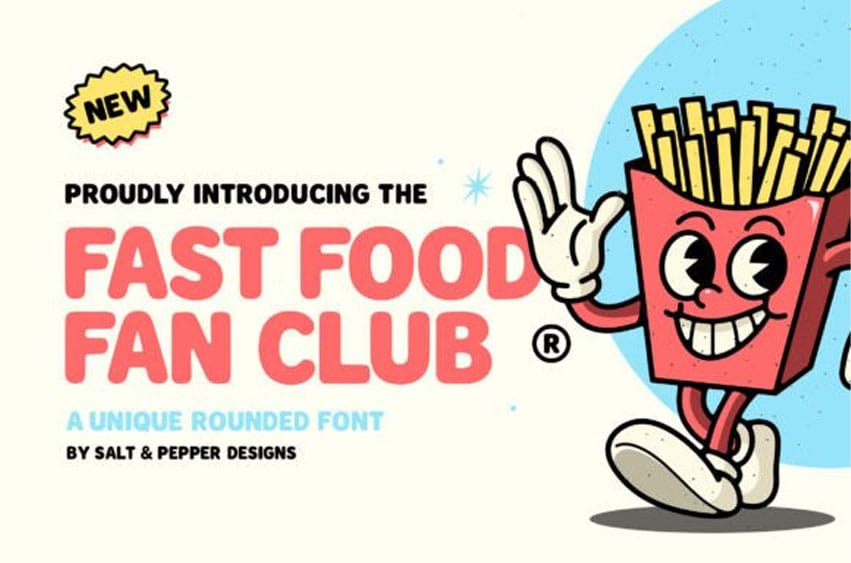
Fast Food Fan Club Font is a bold, rounded display font packed with personality. With its bubbly curves and playful style, this font is perfect for food branding, children’s products, retro packaging, and eye-catching headlines.
Whether you’re crafting a fun logo or a nostalgic menu design, this font delivers with charm and flavor.